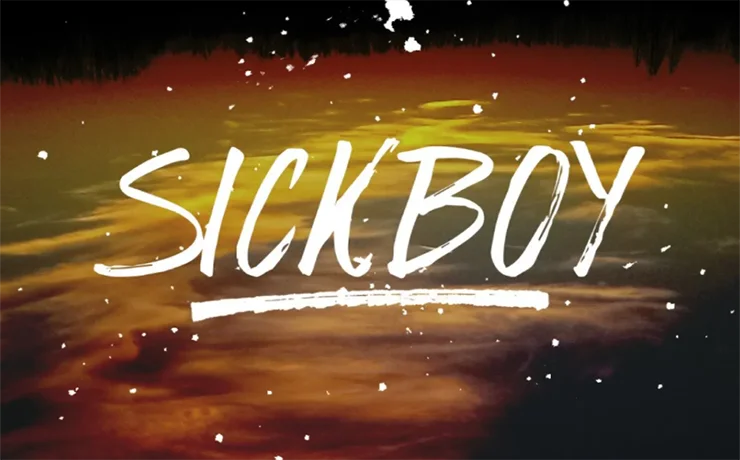
Inspired by handmade lettering, SickBoy Font is a ready-to-use typeface that is perfect for rush designs like modern designs, posters, book covers, flyers, and much more.
A well-known graphic designer Koen van der Bliek took the charge of designing it and releasing it for the first time.
All the letters are designed with the help of a brush in which the designer has not filled in all the letters completely. He applied only one stroke to each letter.
As we all know that all the letters are handmade, you will find some extra carefree mood of creative freedom in it. And get high-quality results right away.
Style: | Script, Handwritten, Brush |
Font Designer: | Koen van der Bliek |
It gives a friendly and authentic tone that works beautifully for handmade items.
This brush font can be used for various purposes, such as the envelope design, logo, title, wedding invitations, letterhead, labels, newsletters, signage, labels, social media posters, badges, etc.